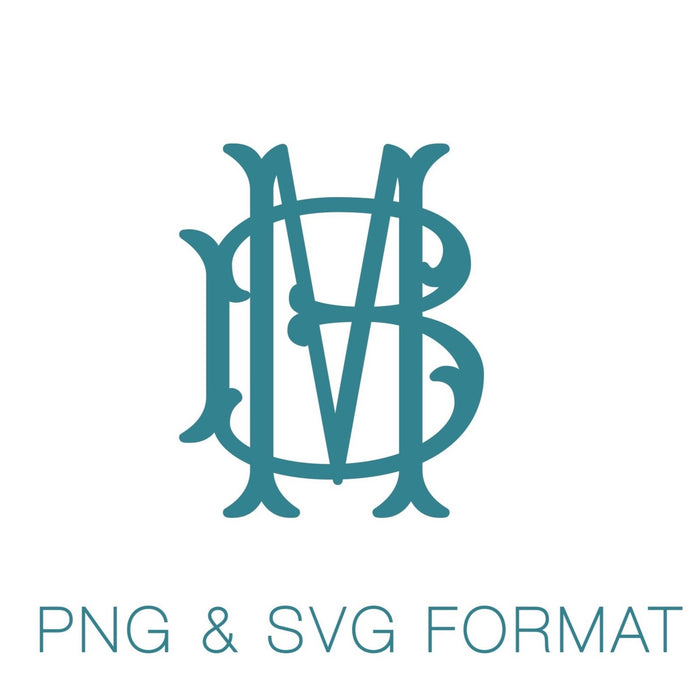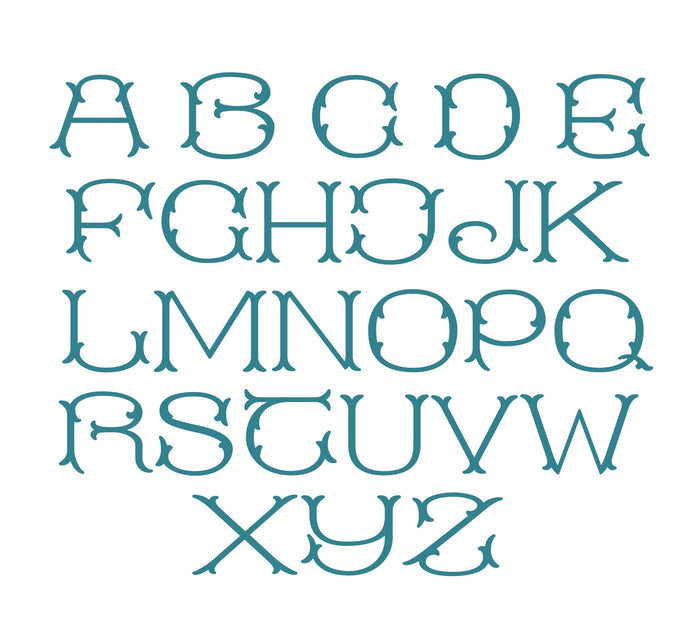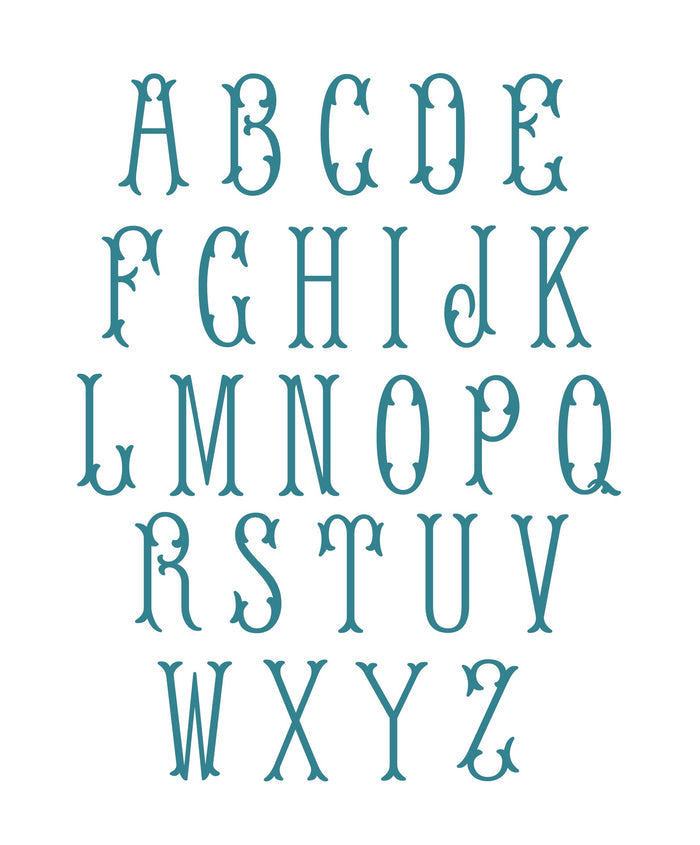
Emmaline Monogram PDF PNG SVG & EPS Monogram Font
This listing includes 52 individual files. 26 uppercase wider shorter uppercase letters and 26 coordinating taller thinner letters in PDF PNG SVG & EPS Format. 52 uppercase letters.